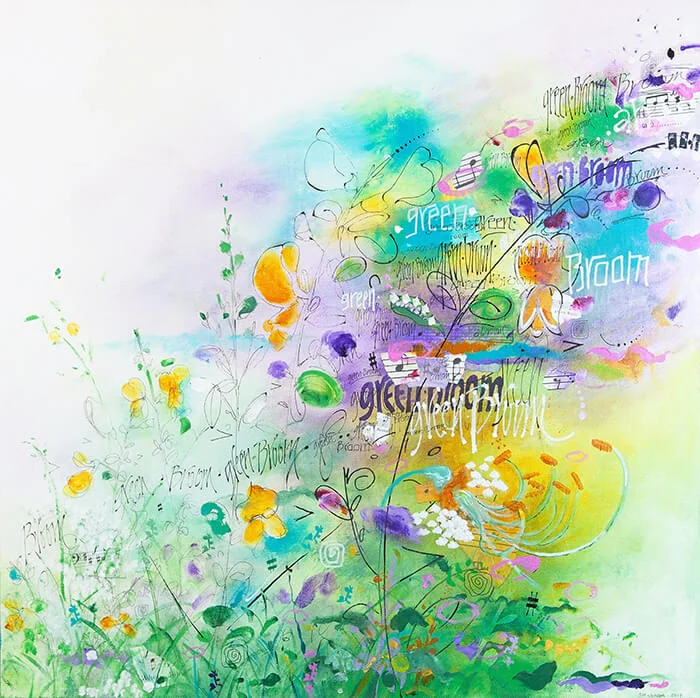
Green Broom is an experiment in combining my new love of painting with lettering. What could I do that was music, lettering and flora? I started by looking up to see if Benjamin Britten had composed anything around flora, it was then I found Five Flower Songs Op.47. Britten had written the music around five songs for Leonard and Dorothy Elmhirst, who were very dear friends of his, on the occasion of their twenty-fifth wedding anniversary. This story I found endearing.
On listening to the five songs I was immediately attracted to No.5 – I found it on YouTube being sung by a small choir. I am myself in a choir so another connection! I honed it down to two words ‘Green Broom’. Working with black and white pens on paper I started getting a feel of the image, words and music. To represent music I tore up photocopied pages of the music, drew and painted music notations. I listened to the piece on my iPad in the studio, playing it over and over again.
A colour piece on paper was completed next, getting to feel the words and music, finding images and cutting stencils. The final piece went onto the canvas adding and taking away to represent the build-up and final crescendo.
Original piece: pen, paper collage, acrylic paint on canvas. Extract from Benjamin Britten, Five Flower Songs Op.47 for mixed chorus – Ballad of Green Broom Op.47, No.5 © 1951 by Boosey & Hawkes Ltd.